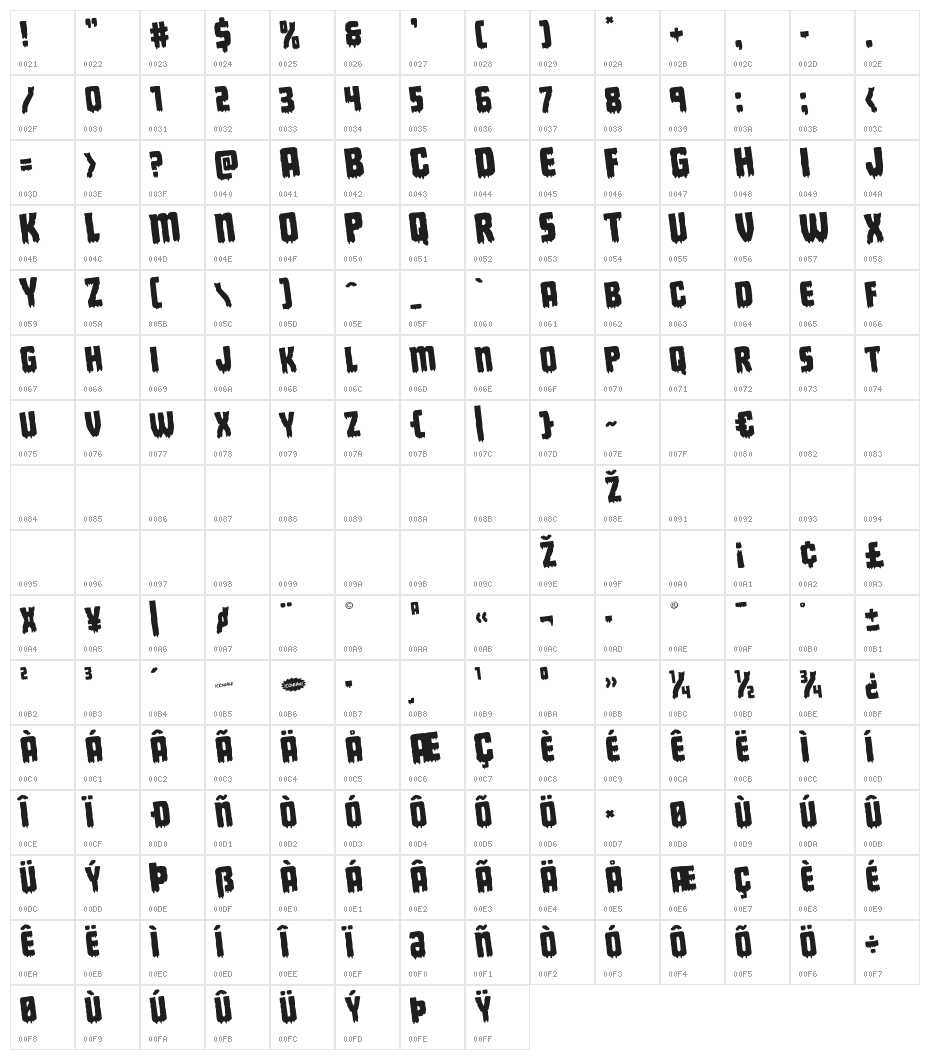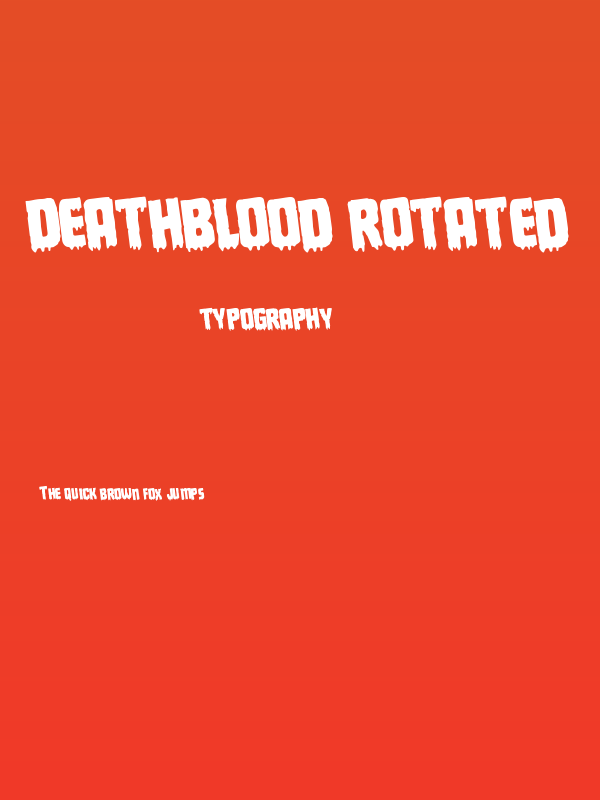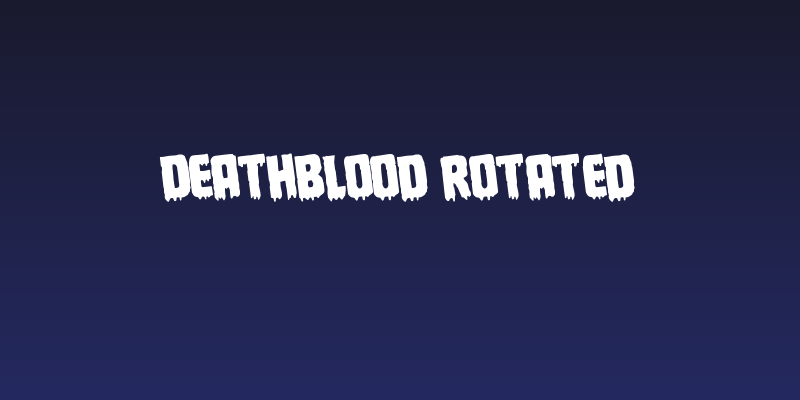
Deathblood Rotated Font
Deathblood Rotated Description
This font features a bold and dramatic style with a dripping effect that gives it a horror-themed appearance. The characters are thick and heavy, with irregular edges that resemble dripping paint or blood, making it ideal for creating a spooky or eerie atmosphere. The uppercase and lowercase letters maintain a consistent style, with numbers and special characters following the same design principles. The font's unique aesthetic is perfect for Halloween-themed projects, horror movie posters, or any design that requires a chilling and impactful look.
| Proposed Projects | Perfect for Halloween invitations, horror movie posters, themed event flyers, and video game graphics. |